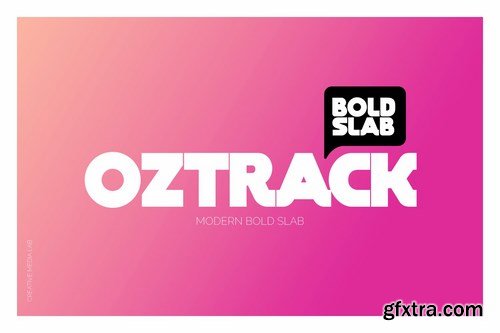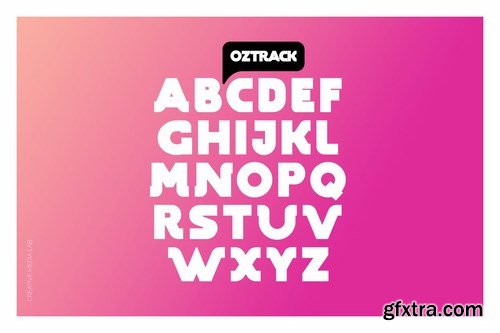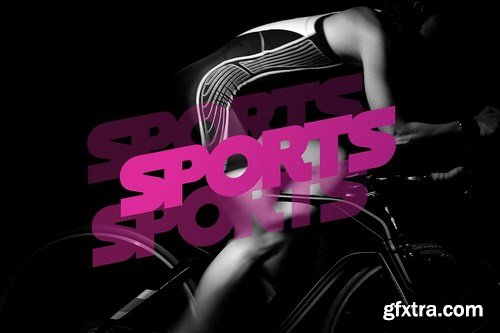
奥斯特轨道字体
Oztrack is a bold slab font, strong and elegant all cap letters Good for logo lettering, sports flyer or poster headlines, product packaging, t-shirt design, book cover